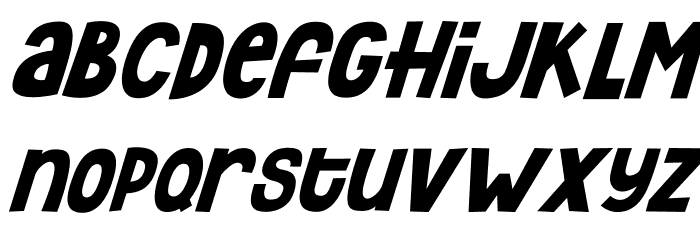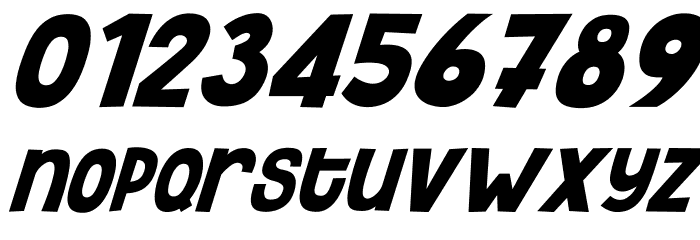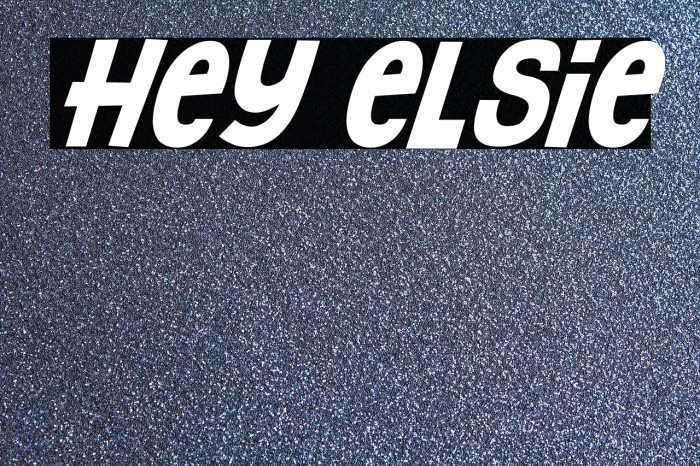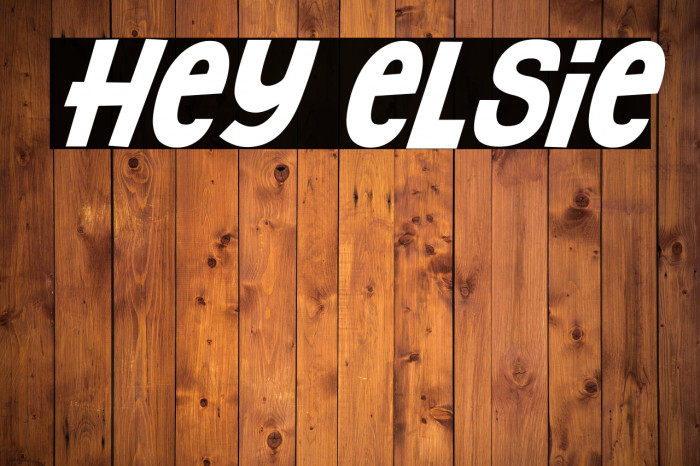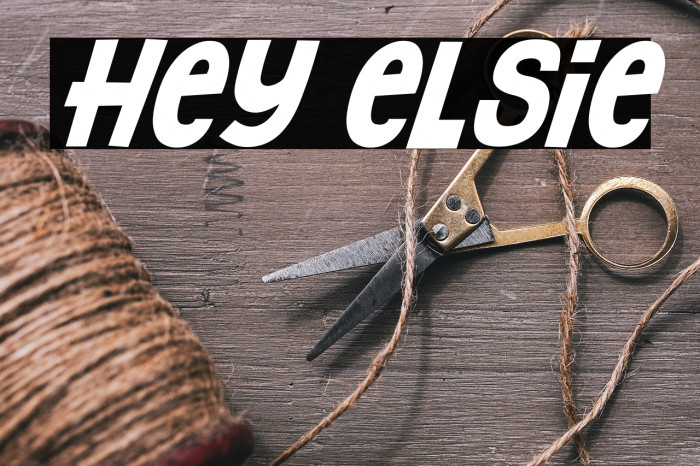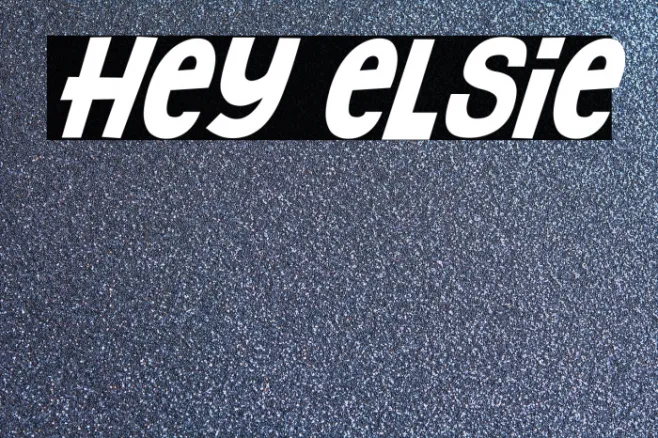
Hey Elsie Font
This font features a bold and dynamic style with a playful, slightly retro aesthetic. The characters are thick and rounded, with a slight slant that gives a sense of movement and energy. The uppercase and lowercase letters maintain a consistent weight, contributing to a cohesive look. Numbers and special characters are designed with the same boldness, ensuring uniformity across all elements. The overall appearance is both eye-catching and approachable, making it suitable for a variety of creative applications.
A bold, dynamic font with a playful, retro aesthetic.
- Font: Hey Elsie
- Proposed Projects: Ideal for branding, posters, headlines, and any project requiring a bold, energetic typeface.
- Overall Style: Retro, Playful